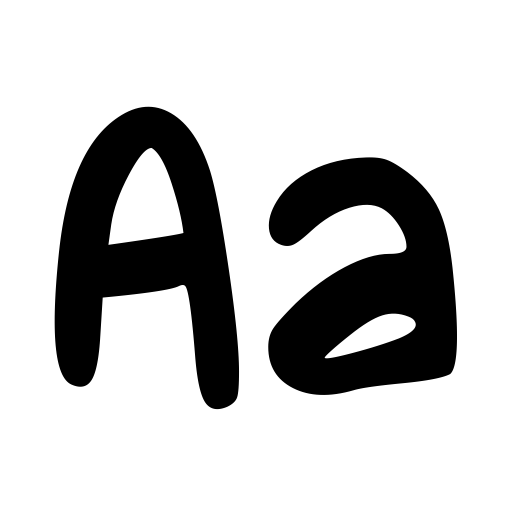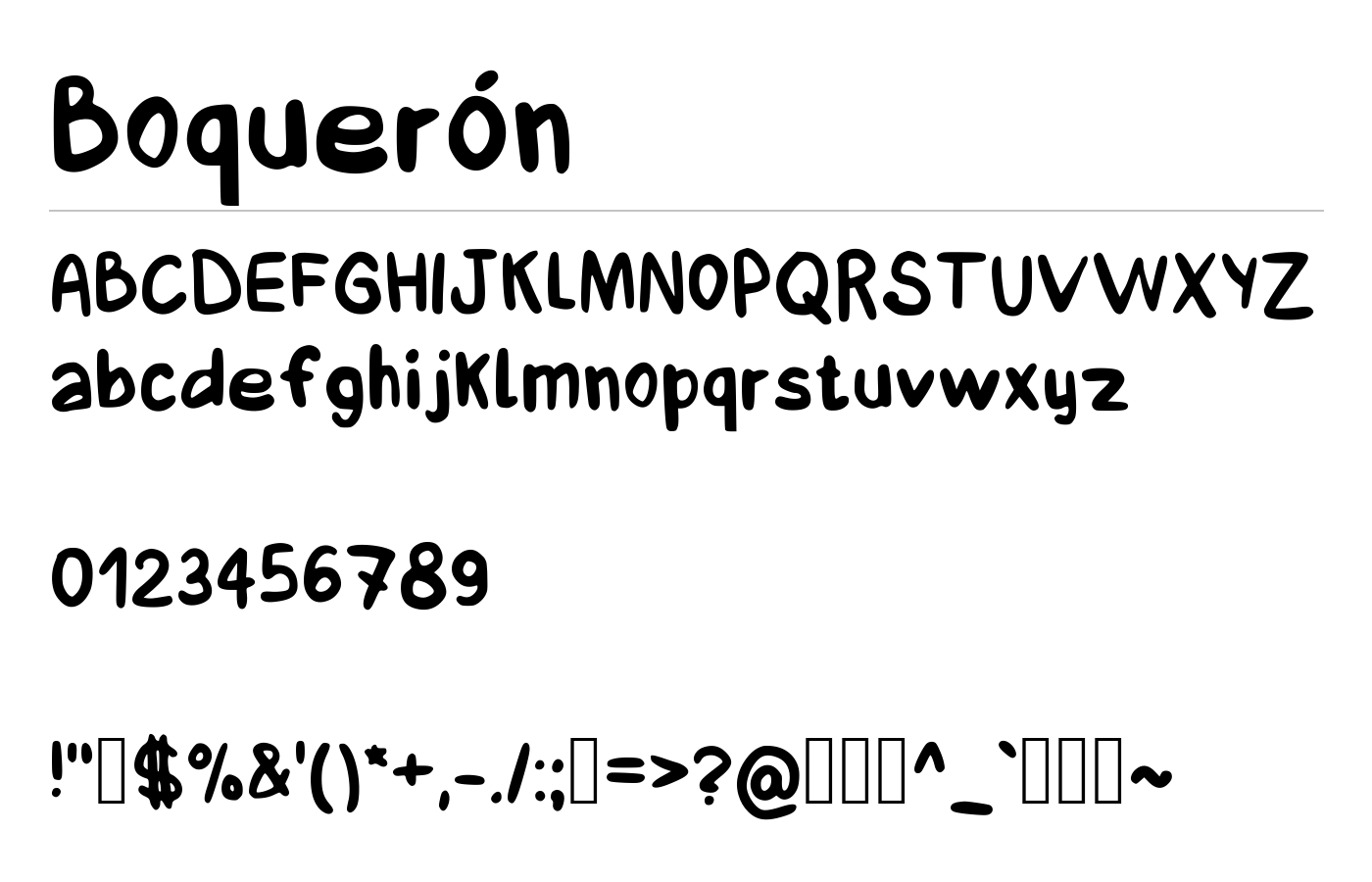
Boquerón is a playful and friendly sans serif font with a casual, hand-drawn feel. Its rounded, slightly irregular letterforms create an approachable and informal style that works well for children's materials, creative projects, and branding that aims to be warm and inviting. This font shines in headlines, packaging, and any design needing a touch of personality and charm.